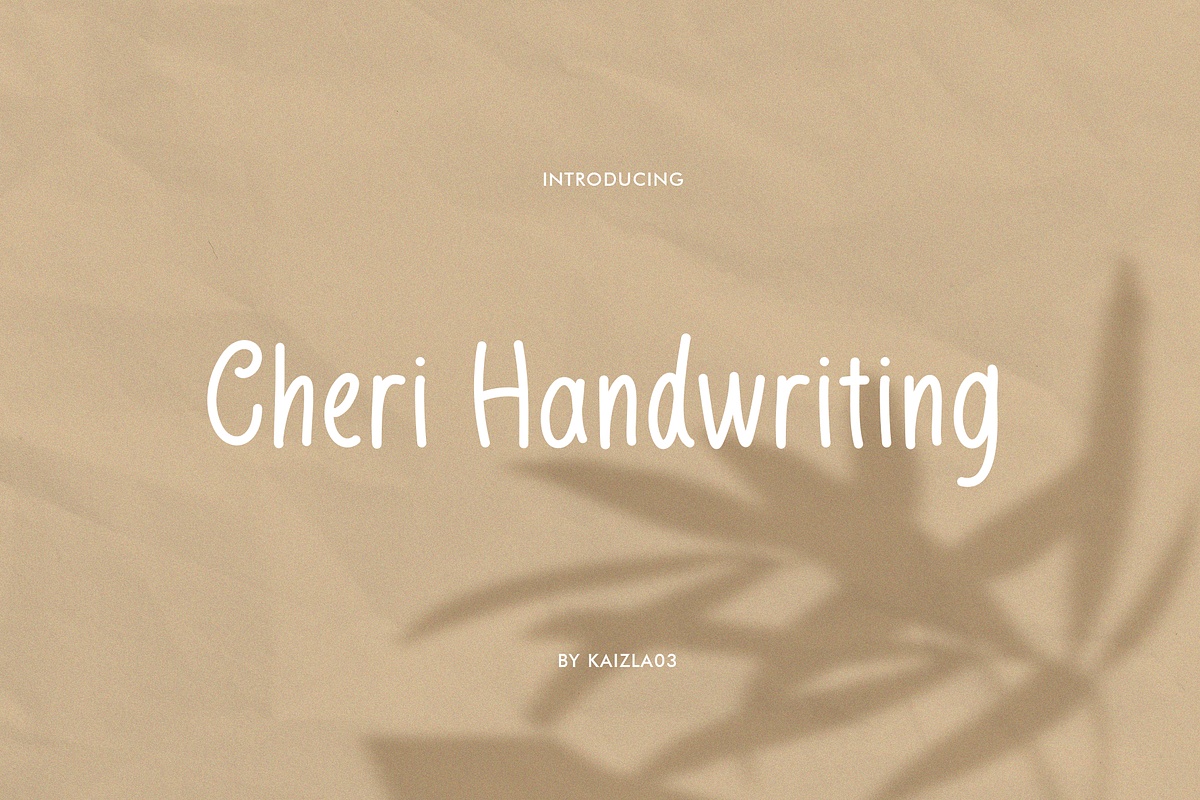
The Cheri Handwriting Font Free Download is a charming and elegant script typeface designed to add a personal, handwritten touch to your designs. With its flowing curves and natural strokes, this font is perfect for creating beautiful invitations, logos, branding, and other creative projects that require a warm, personal touch. Whether you're designing for a wedding, a creative brand, or a casual project, Cheri brings an authentic, artistic flair to your work.
Cheri Handwriting Font Free Download is ideal for designers seeking a stylish, handwritten font that brings elegance and personality to their work. Perfect for invitations, social media graphics, or branding, this font will elevate your designs with its unique, organic style. Download it today and infuse your projects with the beauty of handwritten typography!